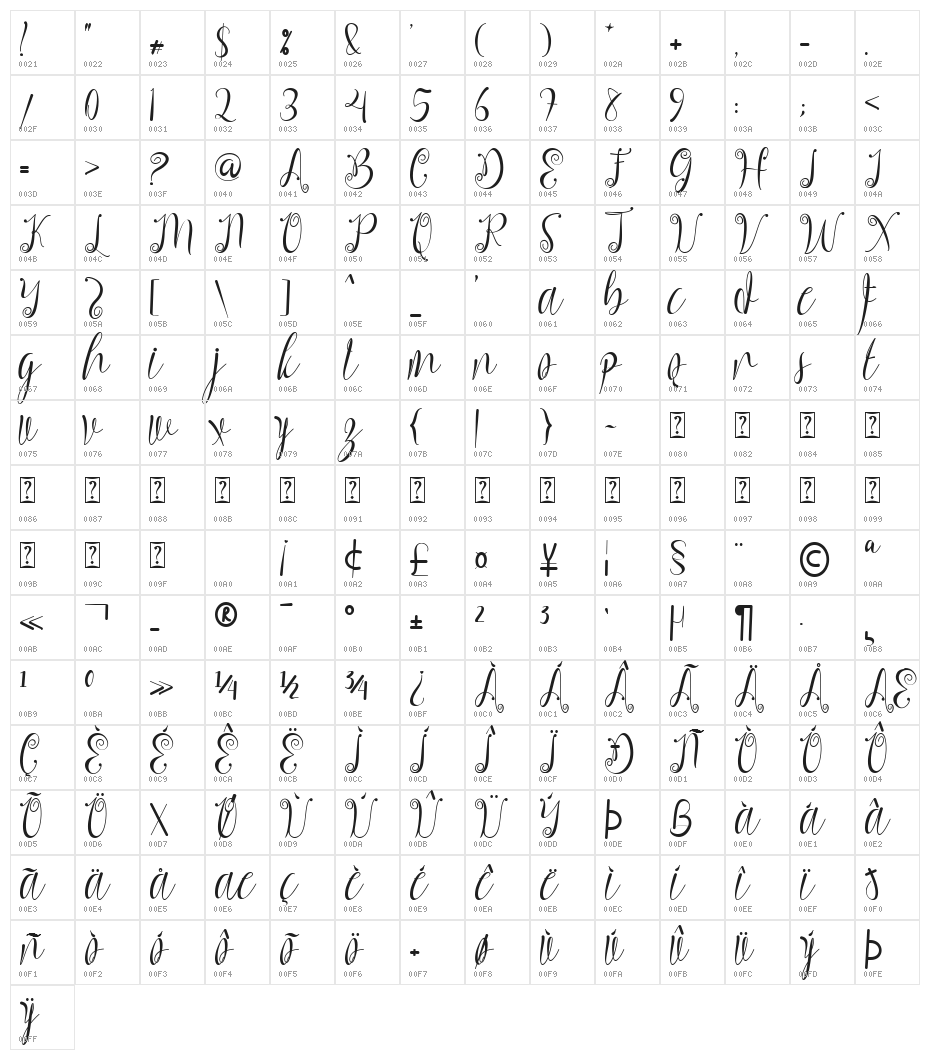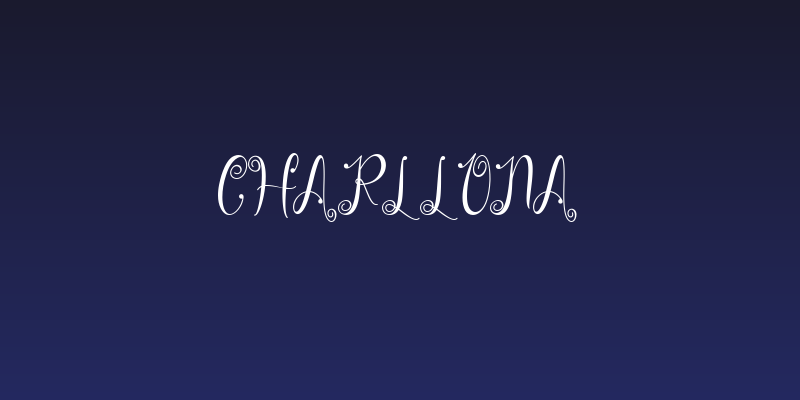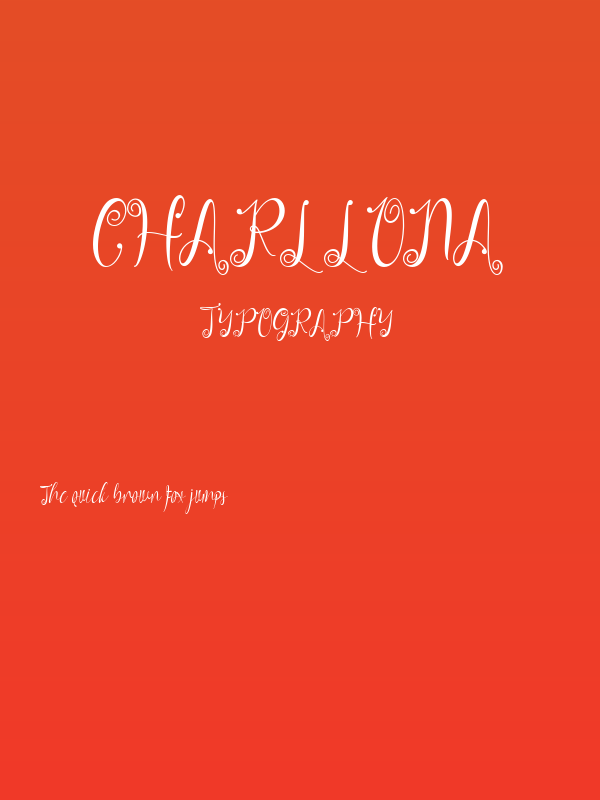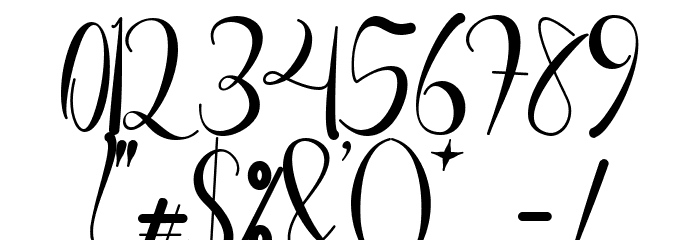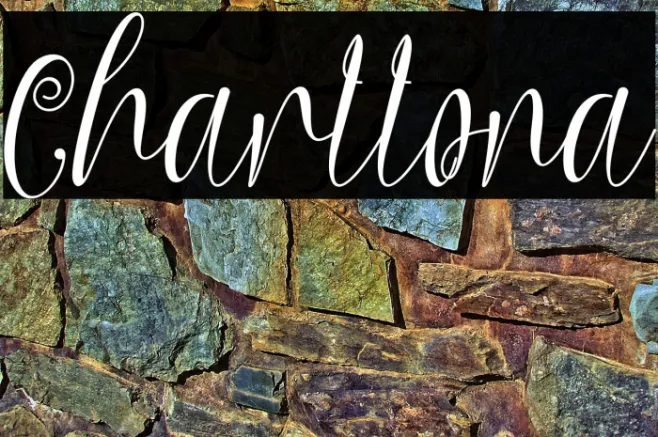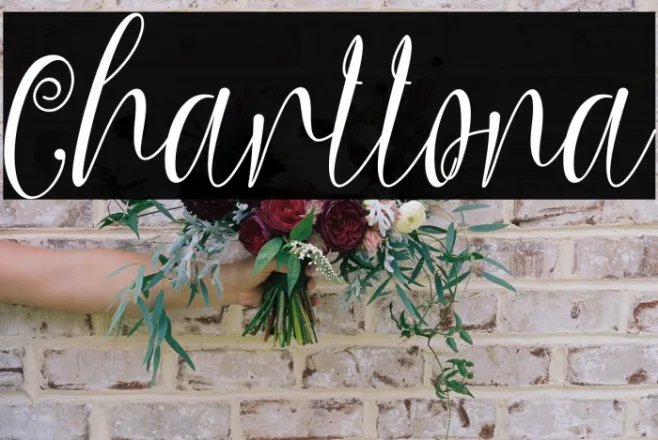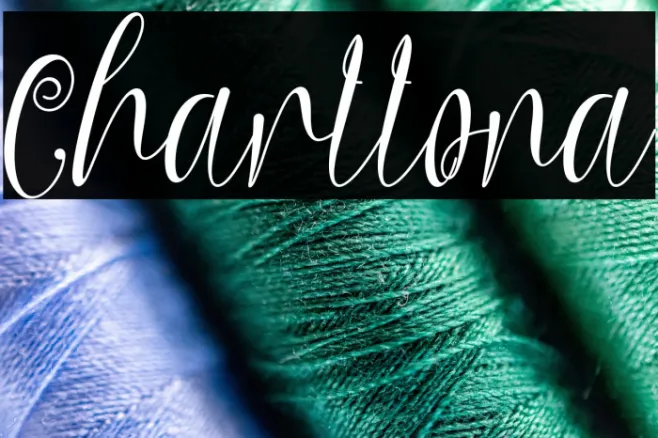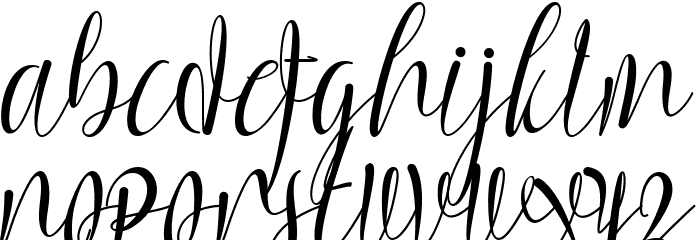
Charllona Font
Charllona Description
This font features an elegant and whimsical script style with a playful and artistic flair. The uppercase letters are characterized by their flowing lines and decorative swirls, adding a touch of sophistication and creativity. The lowercase letters maintain a consistent cursive style, with smooth connections and graceful curves. The numerals are uniquely styled, incorporating the same artistic elements seen in the letters, making them stand out with their distinctive appearance. Special characters are designed with similar flair, ensuring a cohesive look throughout. This font is perfect for projects that require a touch of elegance and creativity.
| Proposed Projects | Ideal for wedding invitations, greeting cards, branding, and artistic projects. |